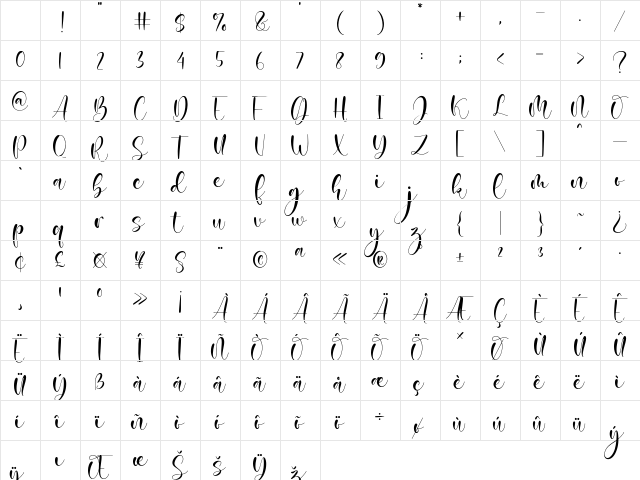
Complete Juliette Michel Regular glyph index. Displaying only characters natively supported by Juliette Michel Regular font.
Juliette Michel is a composed and adaptable typeface that performs quietly and consistently across a wide range of design contexts.